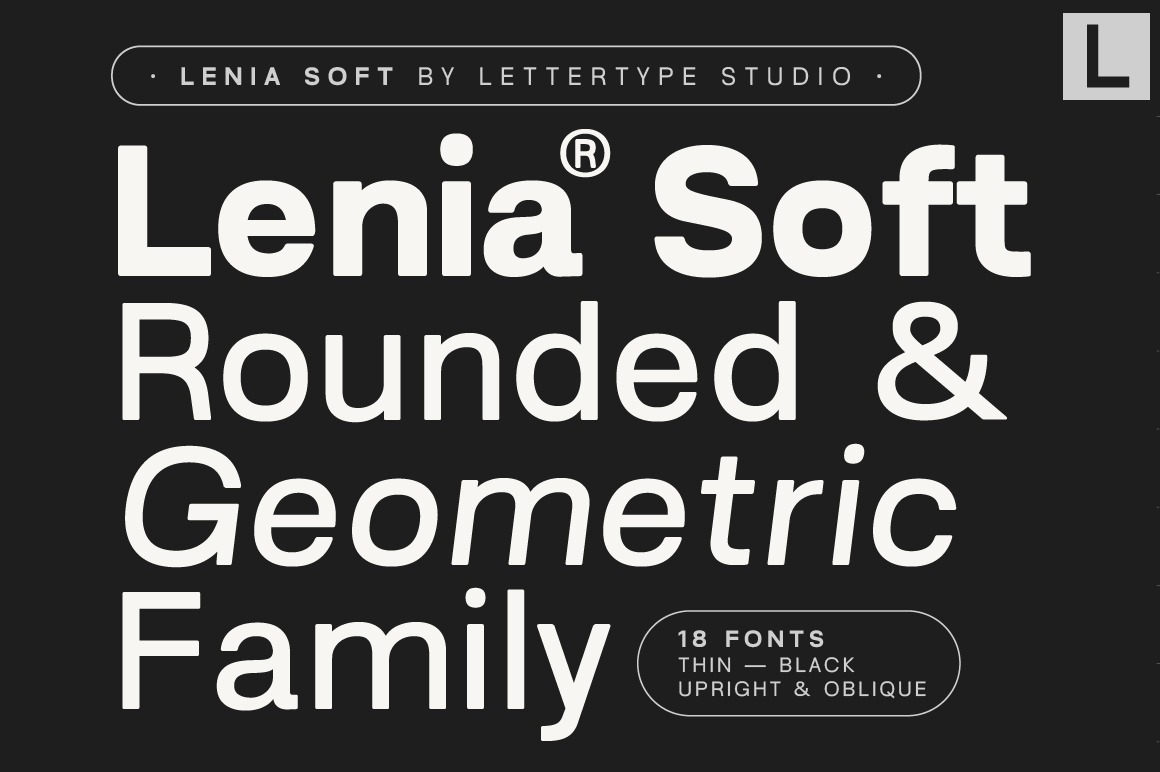
Lenia Soft Font Family
Lenia Soft Font Family is a premium-quality font developed to enhance your work with a polished, modern, and visually elevated look. Lenia Soft was created as the softer evolution of Lenia Sans, preserving its geometric foundation while introducing rounded terminals that create a warmer, more inviting visual experience. Rather than becoming playful or overly rounded, every curve has been carefully refined to maintain the clean, premium aesthetic that makes the family suitable for professional branding. This balance between precision and softness gives Lenia Soft a timeless appearance that adapts naturally across a wide range of creative industries.
Designed as a complete family system, Lenia Soft performs beautifully in branding, editorial publishing, luxury packaging, cosmetics, fashion, architecture, hospitality, corporate communication, websites, mobile applications, UI/UX interfaces, presentations, advertising campaigns, and social media content. Its consistent proportions and optical balance allow designers to create clear hierarchy while maintaining visual harmony from large headlines to small interface text.
The family includes 18 carefully crafted styles from Thin to Black with matching Oblique companions, offering maximum flexibility for professional typography. Advanced OpenType features include stylistic alternates, ligatures, superior and inferior figures, fractions, circled numerators, arrows, and extensive Latin language support. Whether you’re building an elegant visual identity or a modern digital experience, Lenia Soft delivers clarity, versatility, and contemporary sophistication in every weight.
Lenia Soft Features:
18 Styles
Upright & Oblique
484 Glyphs Total
270+ Languages Support